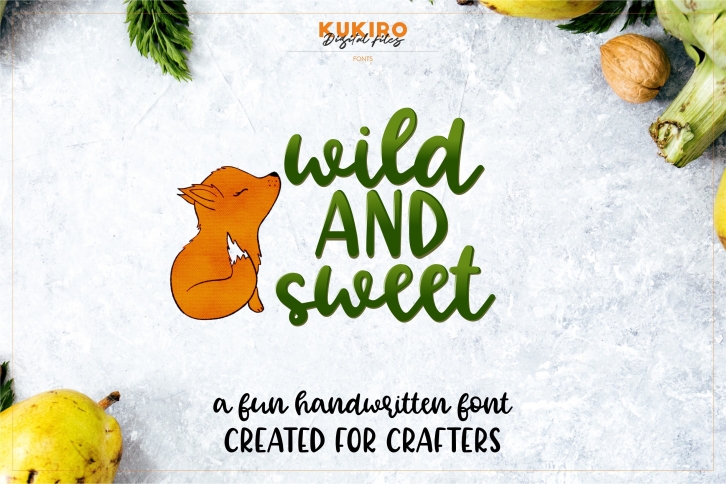
Wild And Sweet is a beautiful font that was designed by Kukiro. It's a great choice for designers and creatives who need such a font. It was released on March 9, 2019 and the file size is 9.31 MB. Wild And Sweet may give a more youthful, expressive and casual look to your project. It is a very beautiful, refined, elegant, and high-quality font.